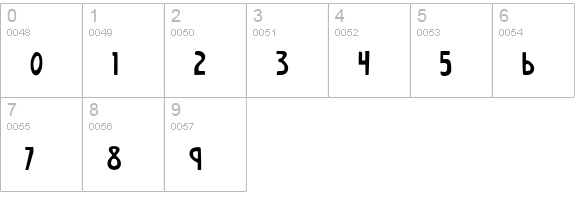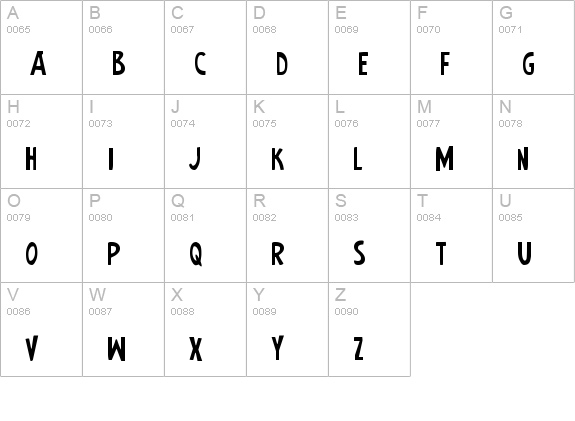
Earth's Mightiest Font Details
Introducing Earth's Mightiest, a bold and powerful font that embodies the strength and resilience of the planet we call home. This font is the epitome of might, with its robust lines and commanding presence. Earth's Mightiest is perfect for any project that requires a touch of authority and dominance. But what sets Earth's Mightiest apart from other fonts? It's not just its remarkable design; it's also the fact that it is absolutely free! Yes, you read that right. This extraordinary font is freely available to download at FontsMarket.com, making it accessible to everyone who wants to add a touch of might to their creations. Whether you're designing a poster for an action-packed movie, creating a logo for a bold and adventurous brand, or even crafting a motivational quote to inspire others, Earth's Mightiest will be your ultimate companion. Its strong and impactful characters will captivate your audience, leaving a lasting impression on anyone who lays eyes on your work. The versatility of Earth's Mightiest knows no bounds. From headlines to body text, this font can handle it all with ease. Its perfectly balanced letterforms ensure legibility without compromising on style, making it an ideal choice for both digital and print projects. With Earth's Mightiest, you can confidently convey your message with authority and clarity. So, don't miss out on this incredible opportunity to enhance your designs with Earth's Mightiest font. Visit FontsMarket.com today and unleash the power of this extraordinary typeface. Whether you're a professional designer or a passionate enthusiast, Earth's Mightiest will undoubtedly elevate your creations to new heights. Get ready to make a bold statement and leave a lasting impact with Earth's Mightiest font - the mightiest font you'll ever need, and it's free!